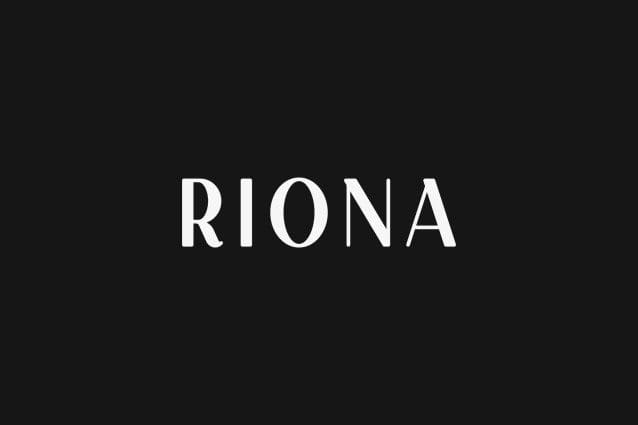
Riona Font
Riona Font is an elegant and versatile font that will make your typography truly unique! It will enchant every logo, branding, headline, or plain text!